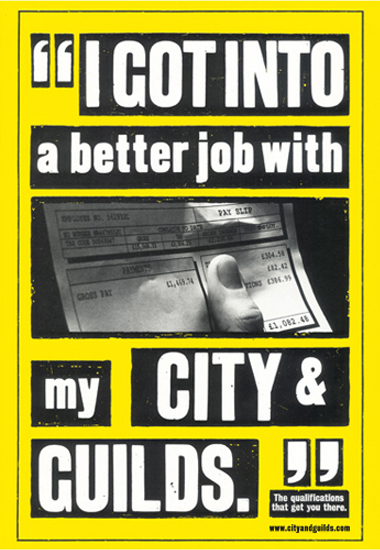
GrotRough Font: A Punchy and Unique Typeface Inspired by Old Wooden Block Characters
The world of typography is vast and diverse, with countless fonts to choose from, each with its own unique character and story to tell. One such font that has gained popularity in recent times is the GrotRough font, a typeface that draws inspiration from old wooden block characters. In this article, we’ll delve into the world of GrotRough, exploring its origins, design features, and uses, as well as its applications in digital and print media.
The Origins of GrotRough Font
GrotRough font was inspired by the traditional wooden block characters used in printing presses. These wooden blocks, also known as type blocks, were hand-carved with individual letters, numbers, and symbols, and were used to print text on paper and other materials. The GrotRough font takes its cue from these vintage type blocks, capturing their rustic charm and character.
The use of wooden block characters dates back to the early days of printing, when Johannes Gutenberg developed the movable-type printing press in the 15th century. Wooden blocks were used to create individual letters, which were then assembled to print text. Over time, metal typefaces replaced wooden blocks, but the legacy of these early printing methods lives on in fonts like GrotRough.
Design Features of GrotRough Font
GrotRough font is characterized by its bold, chunky, and rugged appearance. The font features rough, distressed textures that give it a worn, vintage look. The letters are bold and geometric, with clean lines and sharp edges. The font comes in a range of weights, from light to bold, making it versatile for various design applications.
One of the standout features of GrotRough font is its unique texture, which is reminiscent of wooden block characters. The font’s texture is rough and irregular, with visible imperfections that add to its charm. This texture makes GrotRough font perfect for designs that require a bold, attention-grabbing look.
Uses of GrotRough Font
GrotRough font is an excellent choice for designers looking to add a touch of nostalgia and character to their work. Its bold, punchy appearance makes it perfect for headlines, titles, and graphics. Here are some popular uses of GrotRough font:
- Headlines and Titles: GrotRough font is ideal for creating bold, eye-catching headlines and titles. Its chunky texture and geometric shape make it perfect for grabbing attention.
- Graphic Design: GrotRough font is well-suited for graphic design projects, such as posters, flyers, and brochures. Its bold appearance makes it perfect for creating striking visuals.
- Branding and Identity: GrotRough font can be used to create unique and memorable brand identities. Its distinctive texture and bold appearance make it perfect for logos, business cards, and letterheads.
- Digital Media: GrotRough font can be used in digital media, such as social media graphics, video titles, and blog posts. Its bold appearance makes it perfect for grabbing attention in a crowded online space.
Applications in Digital and Print Media
GrotRough font is a versatile typeface that can be used in both digital and print media. Its bold, chunky appearance makes it perfect for a wide range of applications, including:
- Print Advertising: GrotRough font is ideal for print advertising, such as billboards, posters, and magazine ads. Its bold appearance makes it perfect for grabbing attention.
- Digital Advertising: GrotRough font can be used in digital advertising, such as social media ads, display ads, and video ads. Its bold appearance makes it perfect for standing out in a crowded online space.
- Packaging Design: GrotRough font can be used in packaging design, such as labels, cartons, and bottles. Its bold appearance makes it perfect for creating eye-catching packaging.
- Merchandise: GrotRough font can be used on merchandise, such as t-shirts, mugs, and tote bags. Its bold appearance makes it perfect for creating striking designs.
Tips for Using GrotRough Font
Here are some tips for using GrotRough font effectively:
- Use it sparingly: GrotRough font is a bold, attention-grabbing typeface. Use it sparingly to avoid overwhelming the reader.
- Pair it with a sans-serif font: GrotRough font pairs well with sans-serif fonts, such as Arial or Helvetica. This creates a nice contrast between the bold, chunky texture of GrotRough and the clean lines of the sans-serif font.
- Experiment with colors: GrotRough font looks great in bold, bright colors. Experiment with different colors to find the one that works best for your design.
- Pay attention to legibility: GrotRough font can be bold and chunky, but make sure it’s still legible. Adjust the font size and weight to ensure that the text is easy to read.
GrotRough font is a unique and versatile typeface that draws inspiration from old wooden block characters. Its bold, chunky appearance makes it perfect for a wide range of design applications, from headlines and titles to graphic design and branding. With its rustic charm and character, GrotRough font is sure to add a touch of nostalgia and personality to any design project.